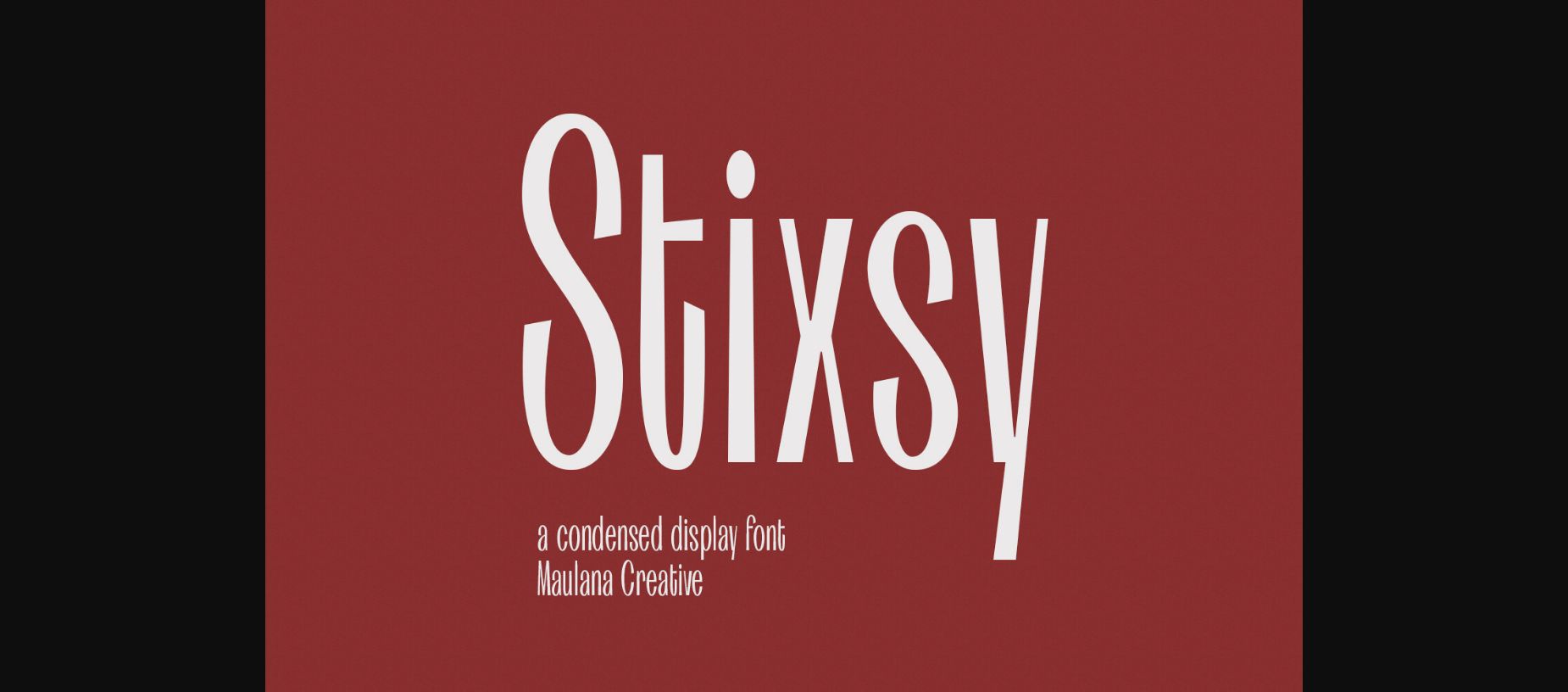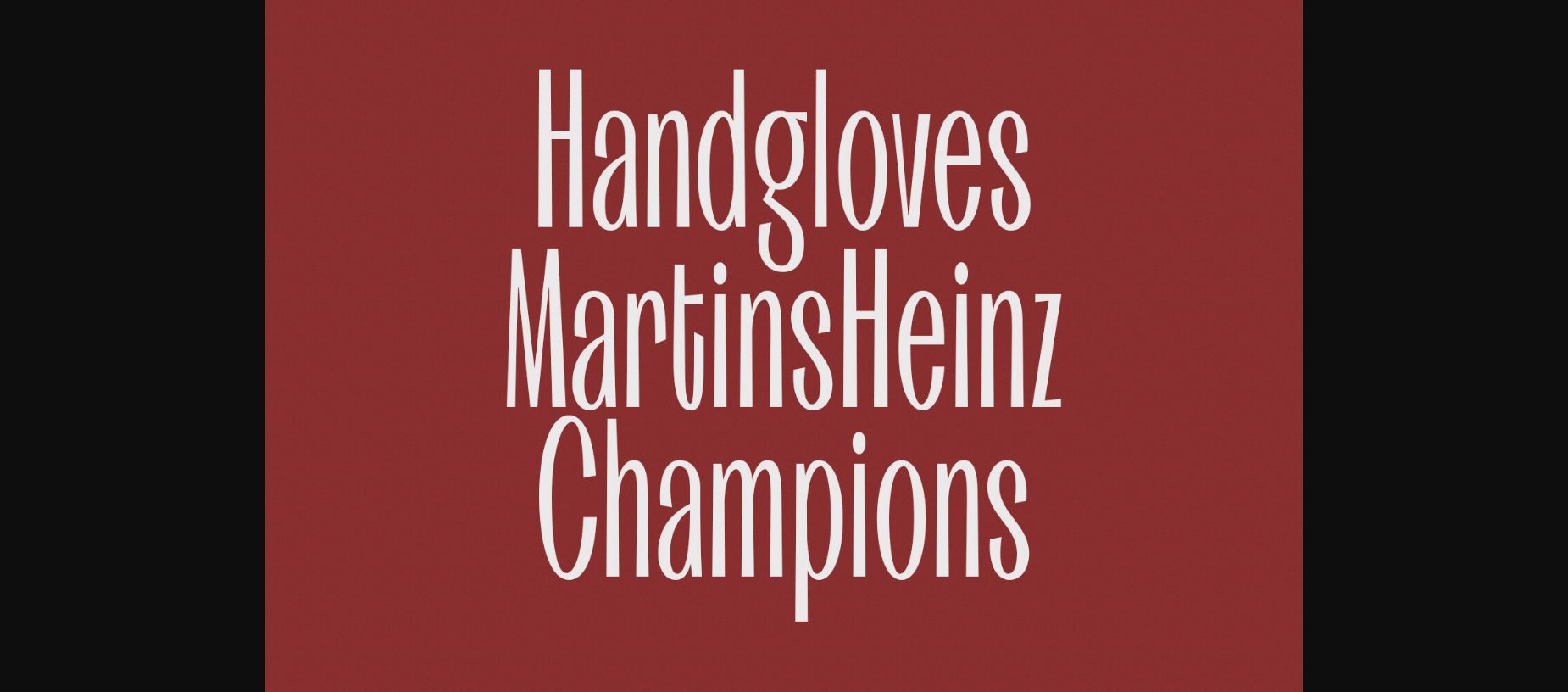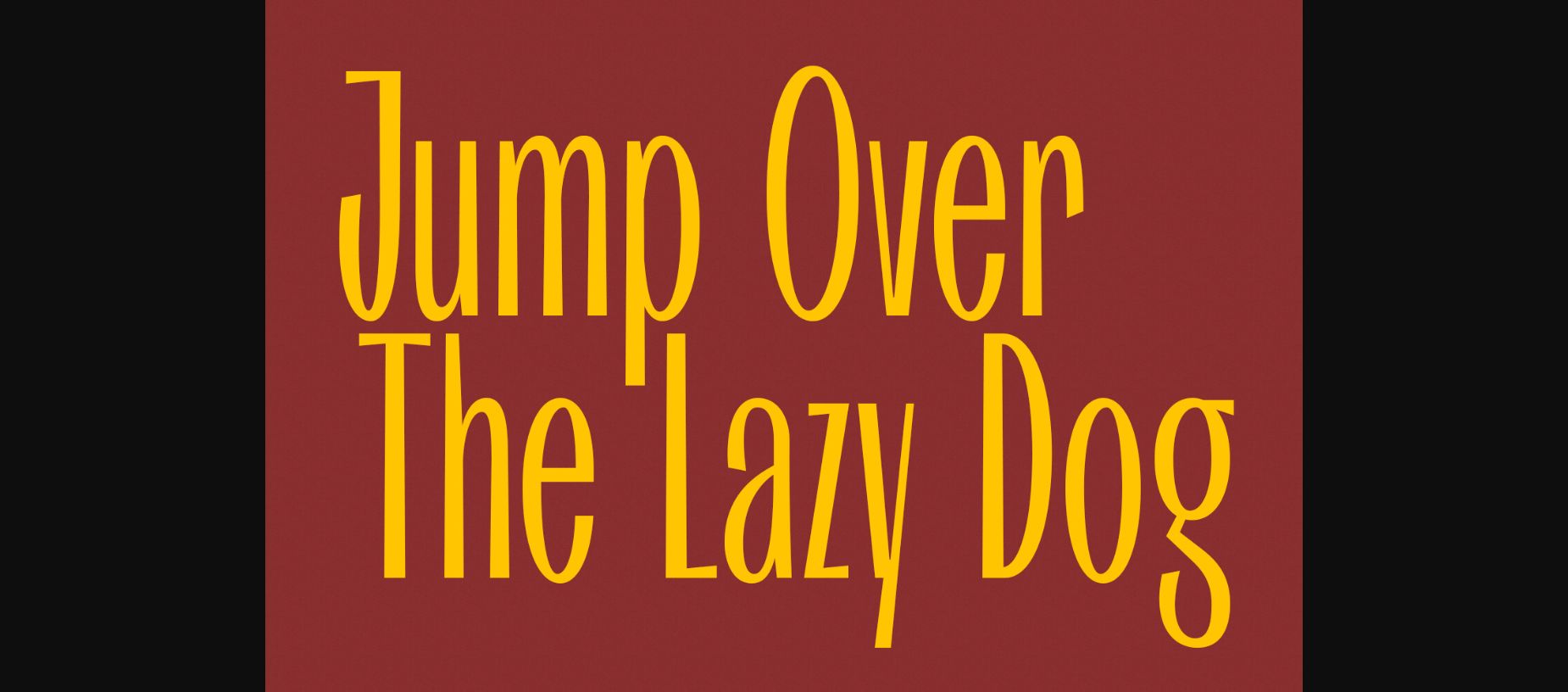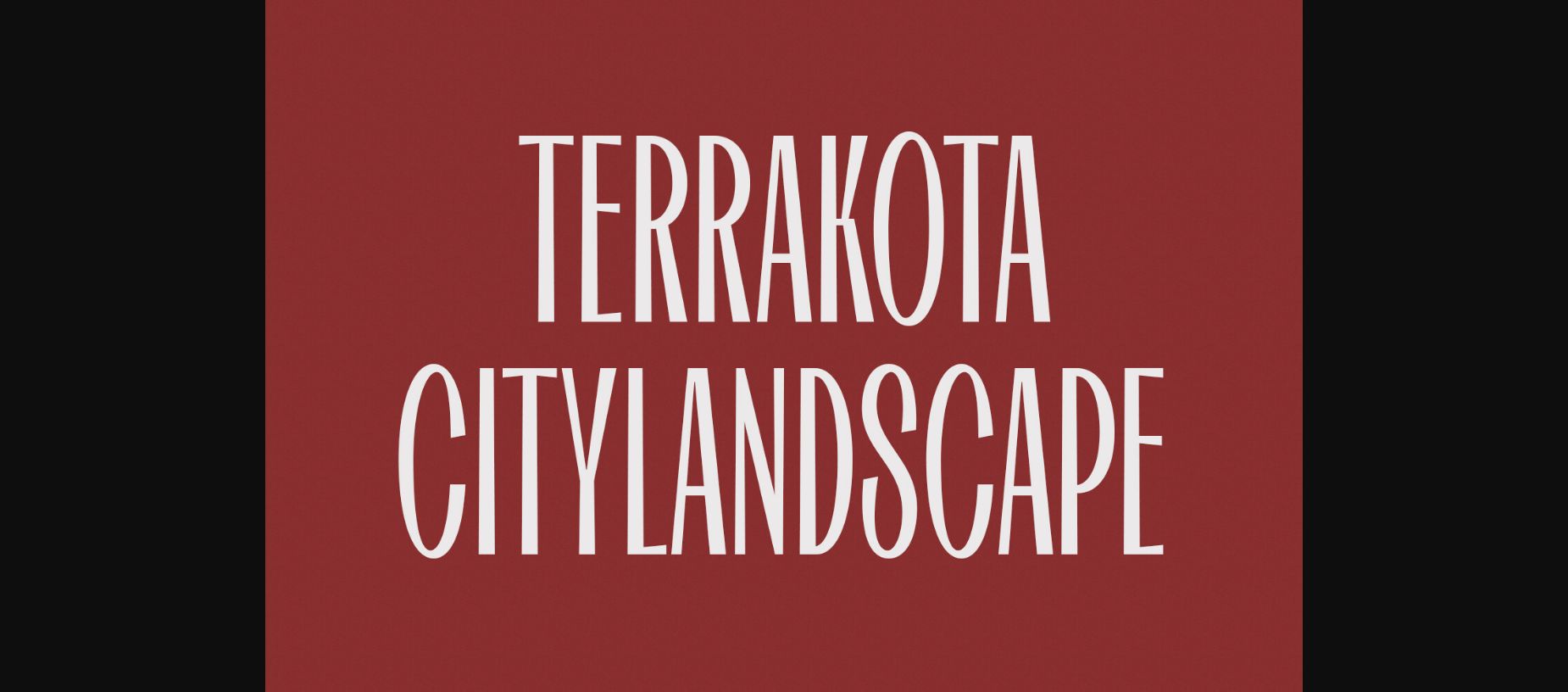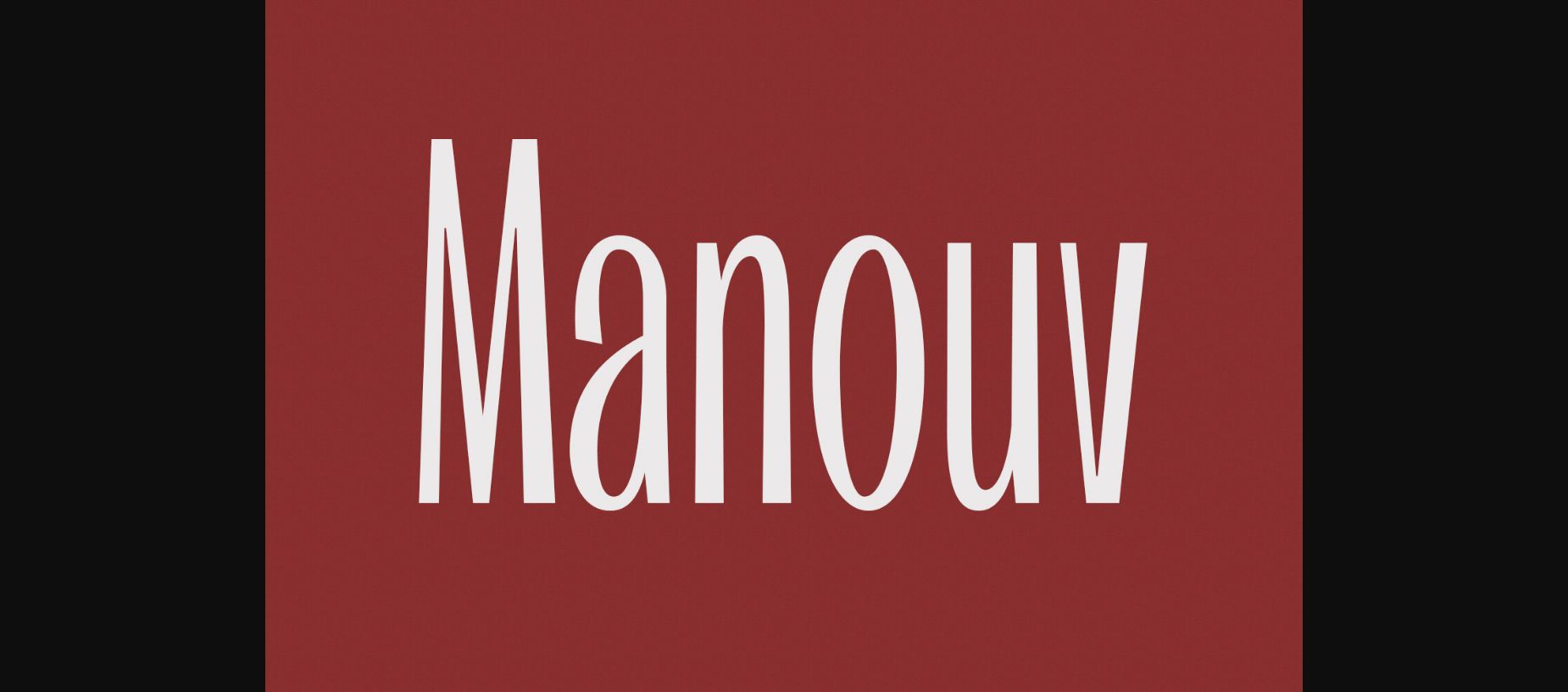
Stixsy Font
About Stixsy Font
Stixsy is a bold and assertive sans serif display font. No matter the topic, this font will be an incredible asset to your fonts’ library, as it has the potential to elevate any creation.